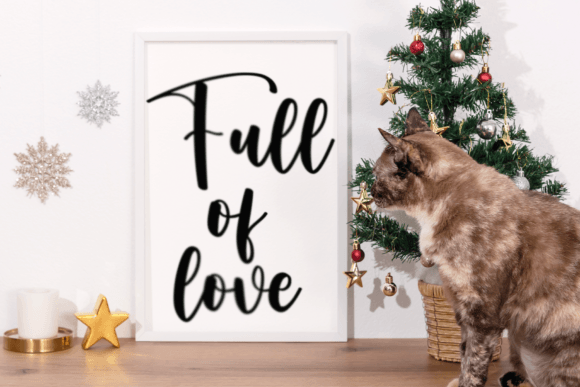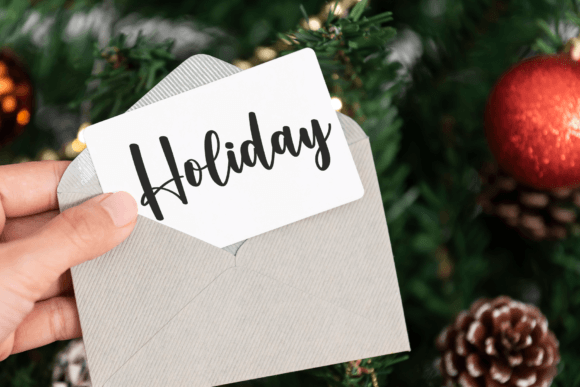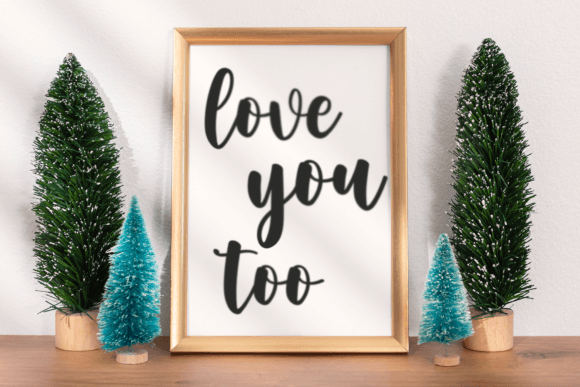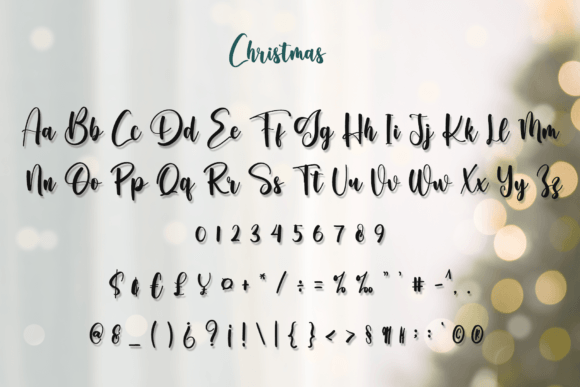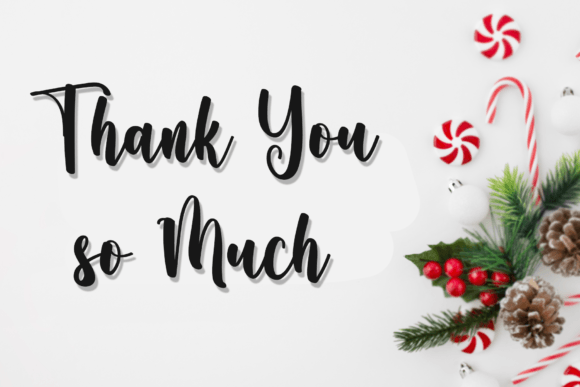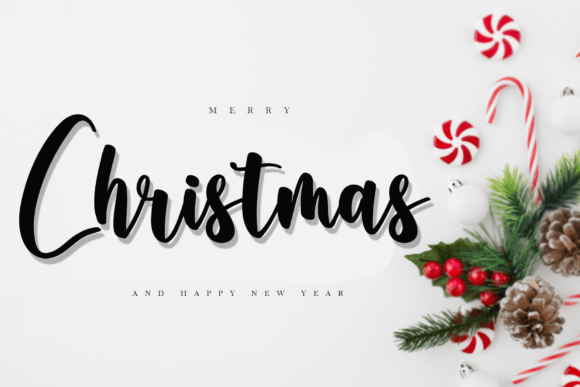
Introducing Christmas Font: A Timeless Calligraphy-Inspired Typeface
Are you looking for a font that captures the essence of the holiday season? Look no further than Christmas Font, a stylish handwritten typeface that exudes a contemporary atmosphere and impeccable form. Inspired by timeless classic calligraphy, this font is perfect for designers and crafters seeking to add a touch of elegance and sophistication to their projects.
The Story Behind Christmas Font
Christmas Font is a carefully crafted typeface that draws inspiration from traditional calligraphy. Its creator aimed to design a font that would not only evoke the spirit of the holiday season but also provide a versatile and reliable tool for designers. With its balanced and varied letterforms, Christmas Font is suitable for a wide range of applications, from festive holiday cards and decorations to branding and advertising materials.
Key Features of Christmas Font
- Handwritten with a contemporary twist: Christmas Font boasts a unique, handwritten feel with a modern edge, making it perfect for designers seeking to add a personal touch to their work.
- Timeless classic calligraphy inspiration: The font’s classic calligraphy roots ensure that it remains timeless and elegant, suitable for a variety of projects and applications.
- Balanced and varied letterforms: The font’s carefully crafted letterforms provide a natural flow and rhythm, making it easy to read and visually appealing.
- Impeccable form: Every detail, from the letterforms to the spacing and kerning, has been meticulously crafted to ensure that the font is both beautiful and functional.
Uses for Christmas Font
Christmas Font’s versatility makes it an excellent choice for a wide range of projects, including:
- Holiday cards and invitations: Add a touch of elegance and sophistication to your holiday cards and invitations with Christmas Font.
- Branding and advertising materials: Use Christmas Font to create eye-catching and memorable branding and advertising materials that capture the essence of the holiday season.
- Decorations and crafts: Christmas Font is perfect for crafters and DIY enthusiasts looking to add a personal touch to their holiday decorations, such as gift tags, banners, and more.
- Digital and print media: The font’s clear and legible design makes it suitable for use in digital and print media, including social media graphics, blog posts, and more.
Tips for Using Christmas Font
To get the most out of Christmas Font, consider the following tips:
- Experiment with font sizes and colors: Christmas Font’s versatility makes it suitable for use in a variety of contexts, from large headings to small body text.
- Pair with complementary fonts: Combine Christmas Font with complementary fonts to create visually appealing and harmonious typography.
- Use for headlines and titles: Christmas Font’s elegant and sophisticated design makes it perfect for use in headlines and titles.
Christmas Font is a beautiful and versatile typeface that captures the essence of the holiday season. With its timeless classic calligraphy inspiration, balanced and varied letterforms, and impeccable form, this font is perfect for designers and crafters seeking to add a touch of elegance and sophistication to their projects. Whether you’re creating holiday cards, branding materials, or decorations, Christmas Font is sure to become a go-to choice for your typography needs.